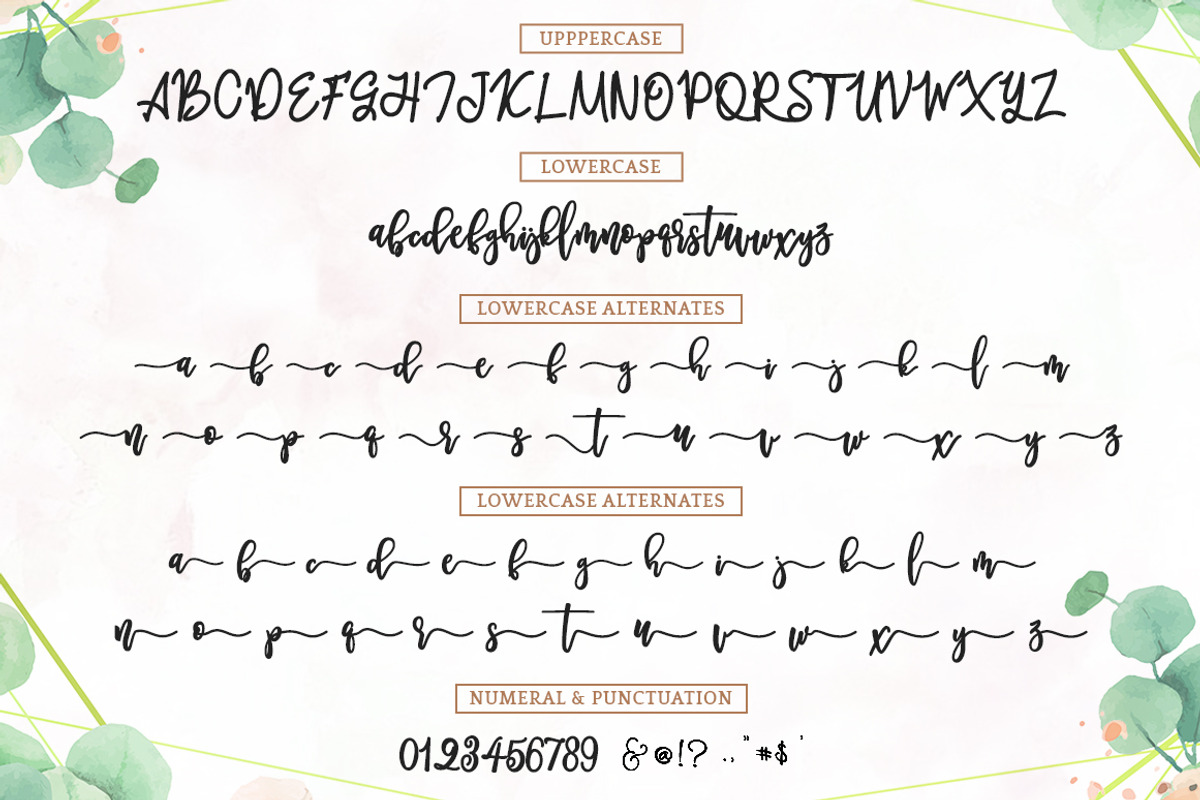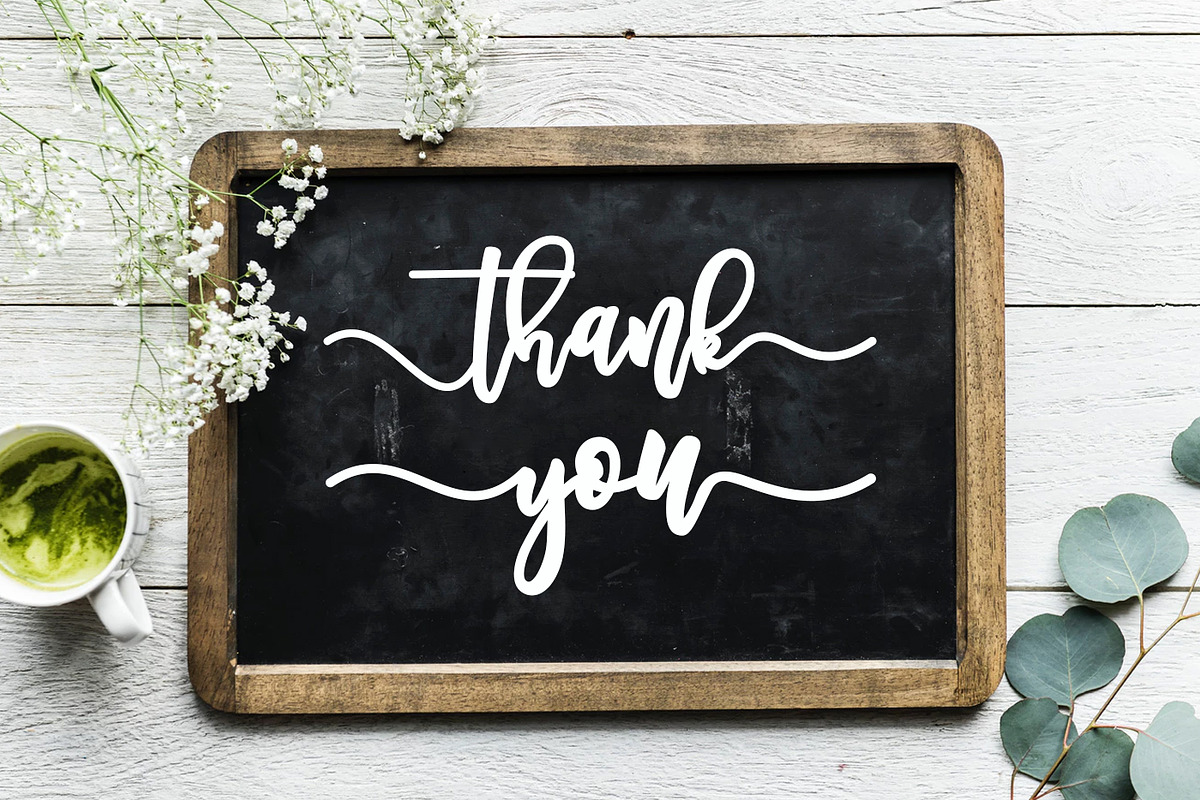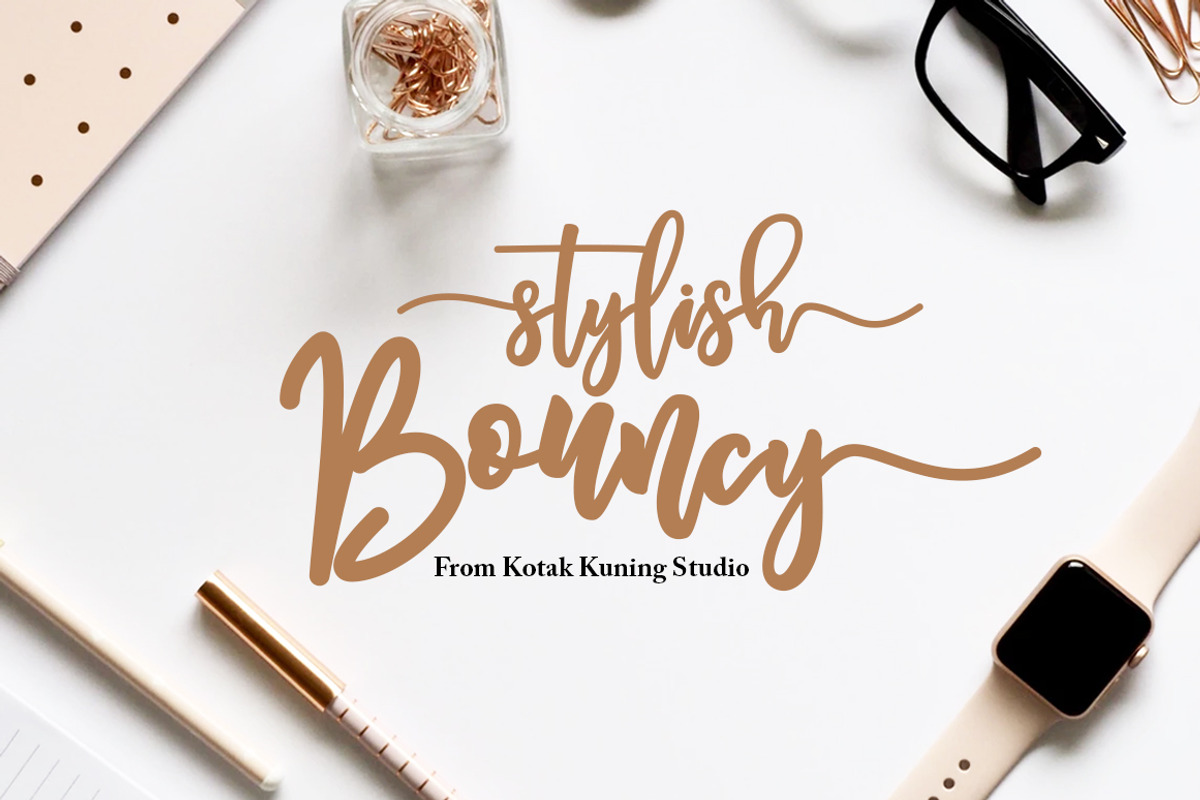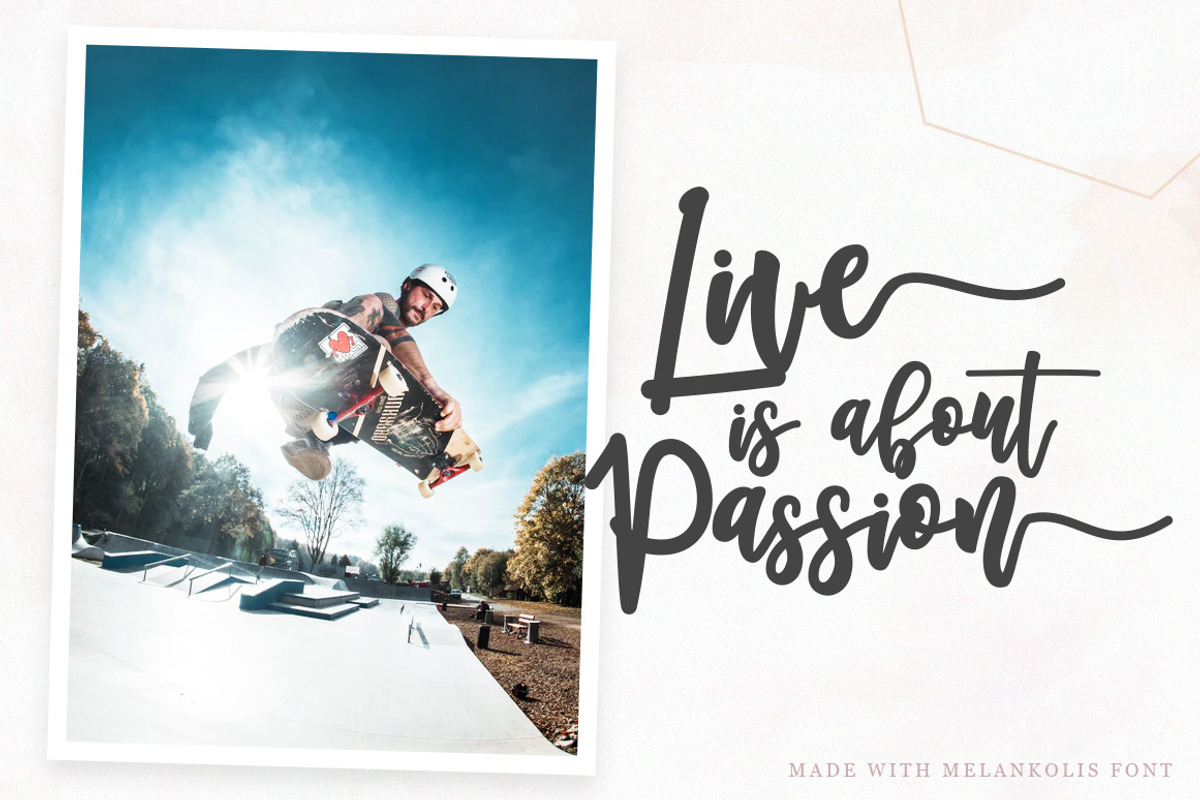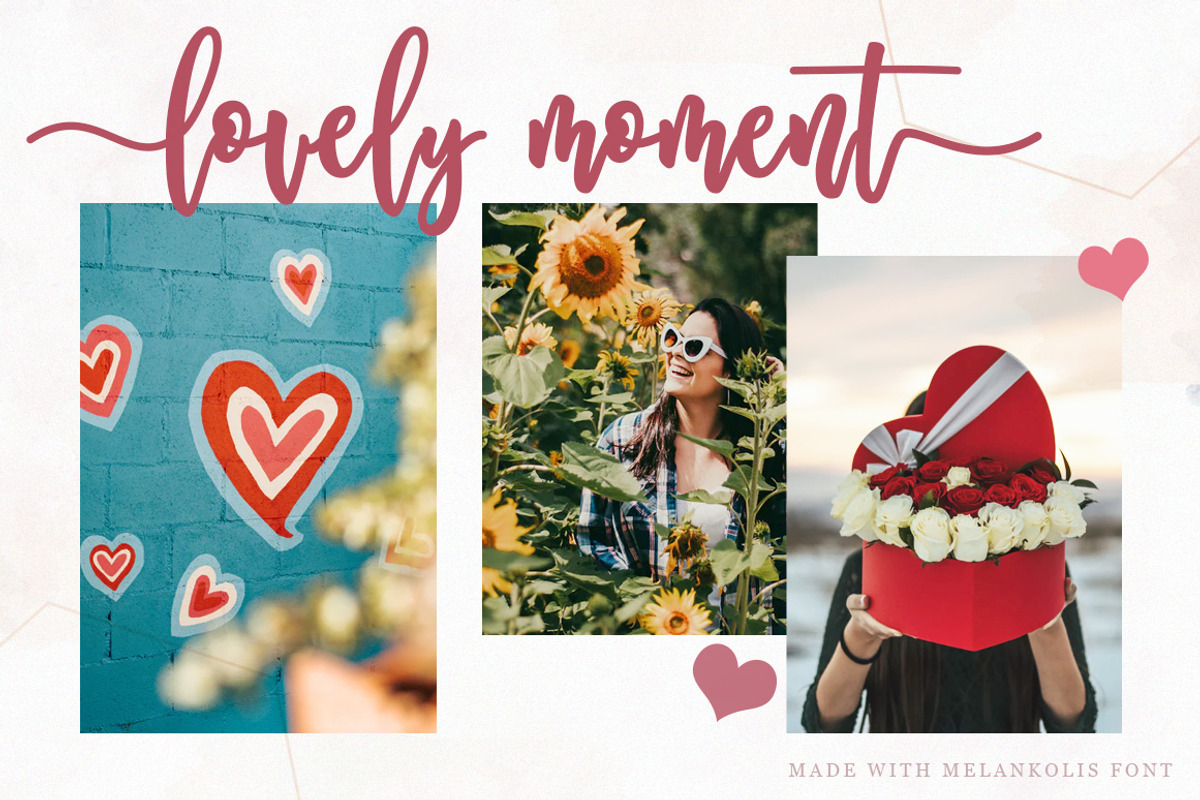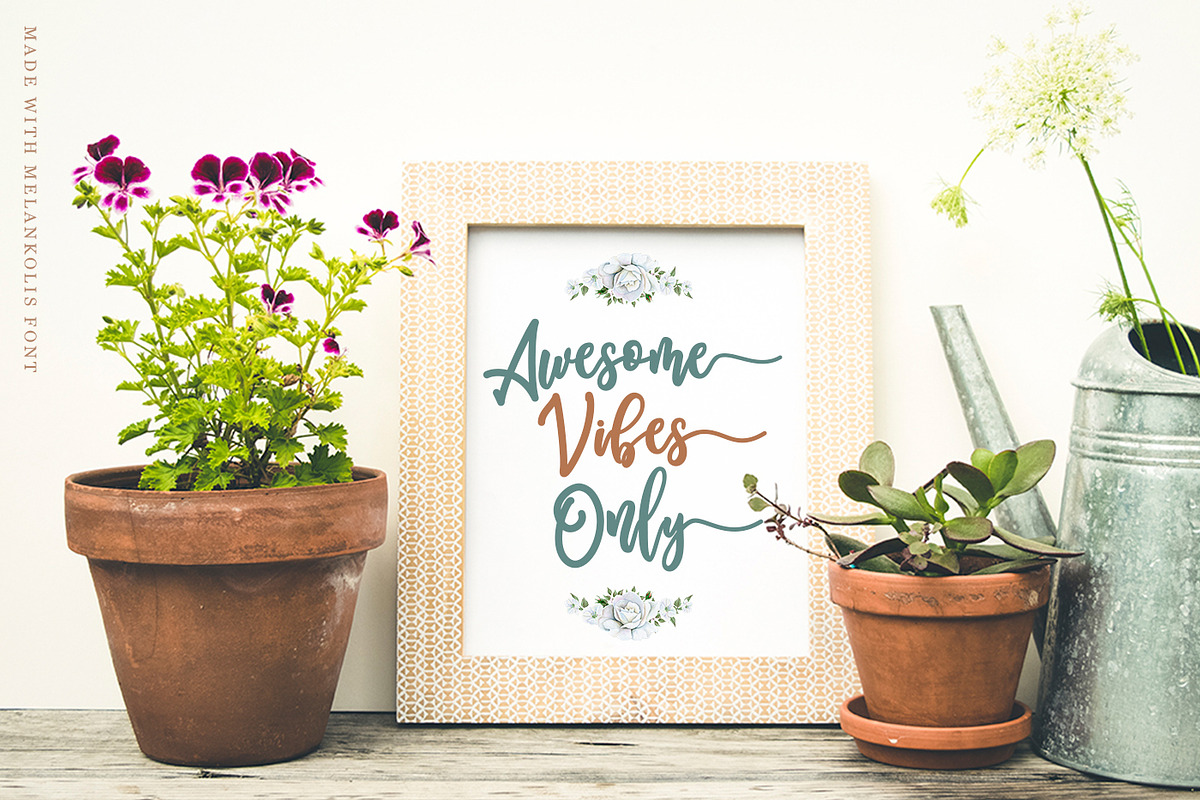
Melankolis - Bouncy Script Font
Say hello to Melankolis Font!
An elegant calligraphy font. Perfect for making elegant stylish statements - or adding a touch of class to your designs. This script has a multitude of natural-looking ligatures and alternate characters in its OpenType features - making the font look as close to natural handwriting as possible.
Melankolis is perfect for many different projects such as logos & branding, invitation, stationery, wedding designs, social media posts, advertisements, product packaging, product designs, label, photography, watermark, special events or anything.
- Melankolis includes capital and lowercase letters, alternates, and Ligatures
Melankolis - Bouncy Script Font by Kotak Kuning Studio fits naturally into Branding, posters, packaging, typography.